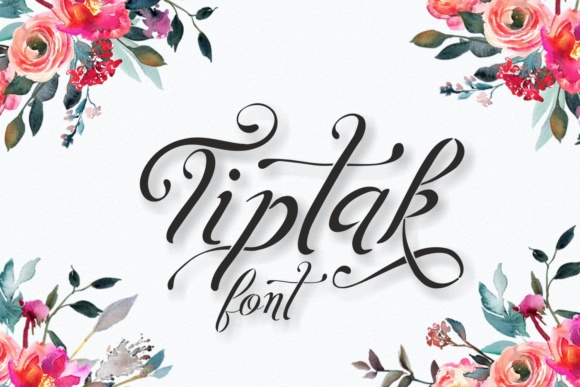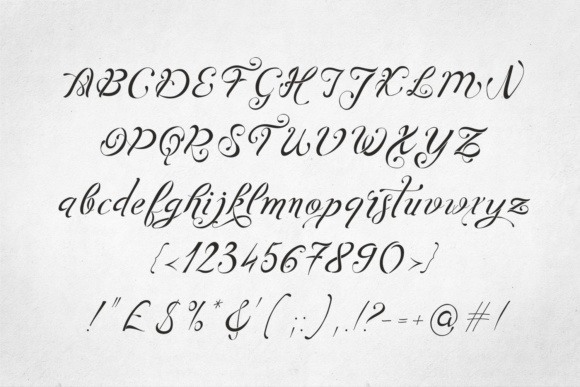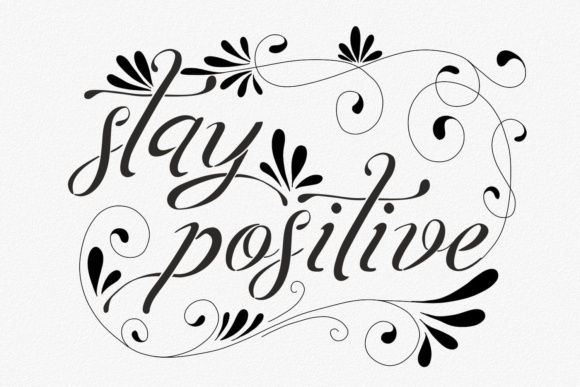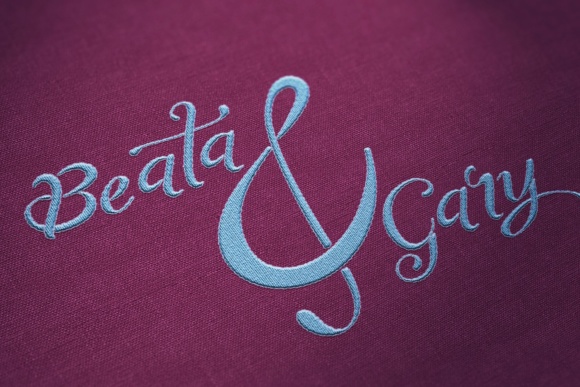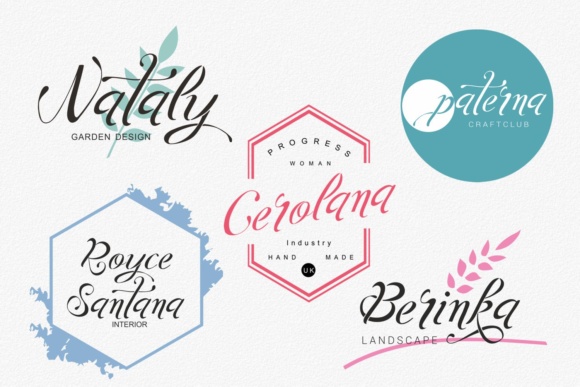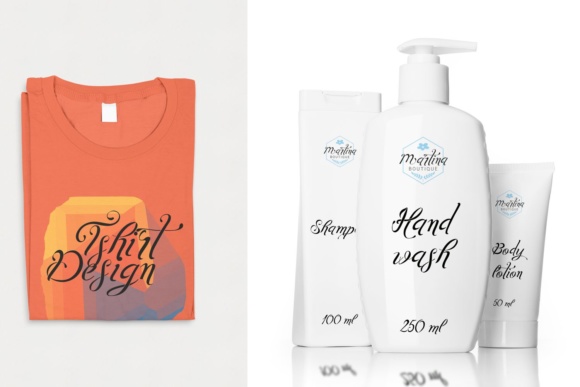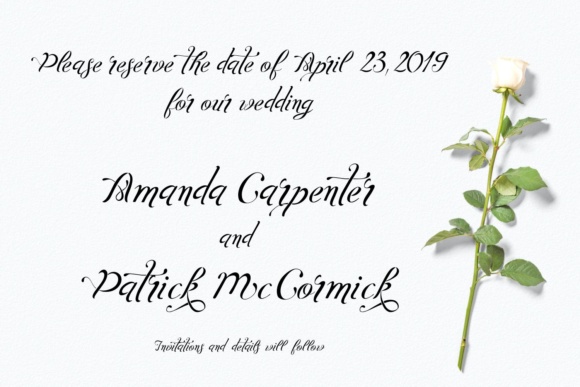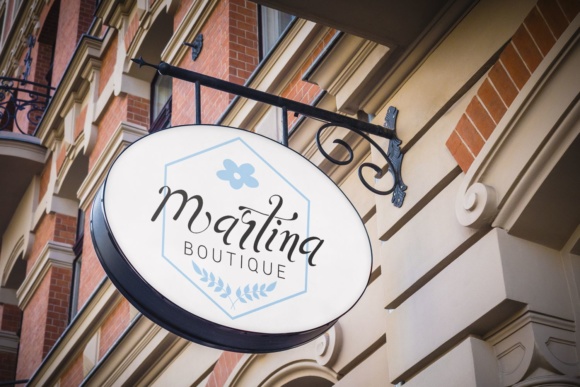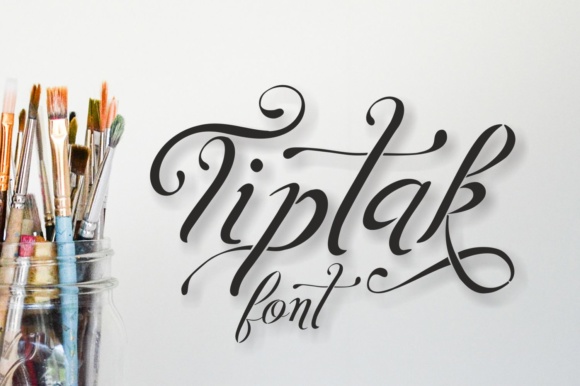
Tiptak Font
About Tiptak Font
Tiptak is a gorgeous script font, perfect for giving a touch of romance to your designs. This handwritten font looks gorgeous across a wide range of styles and applications.